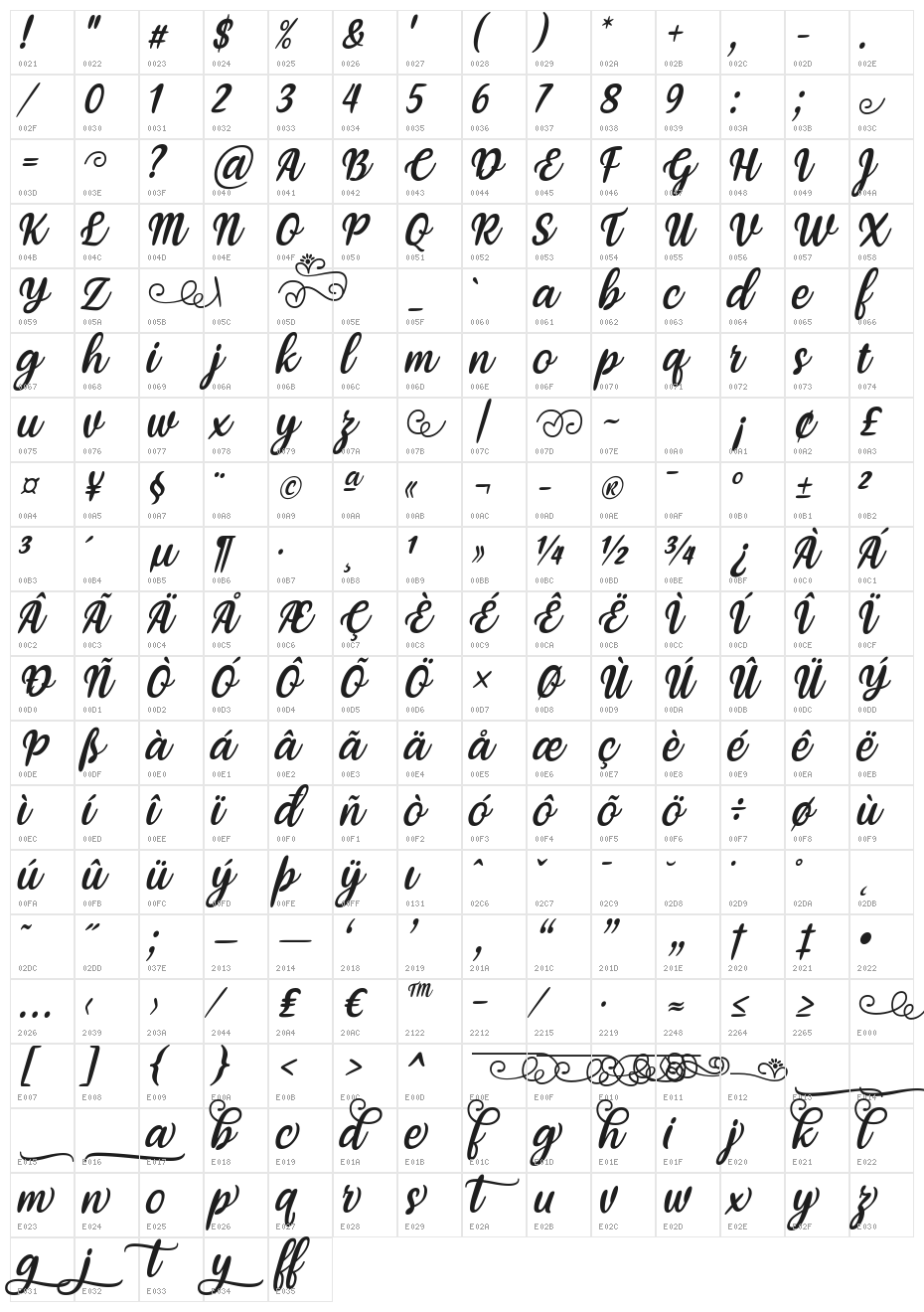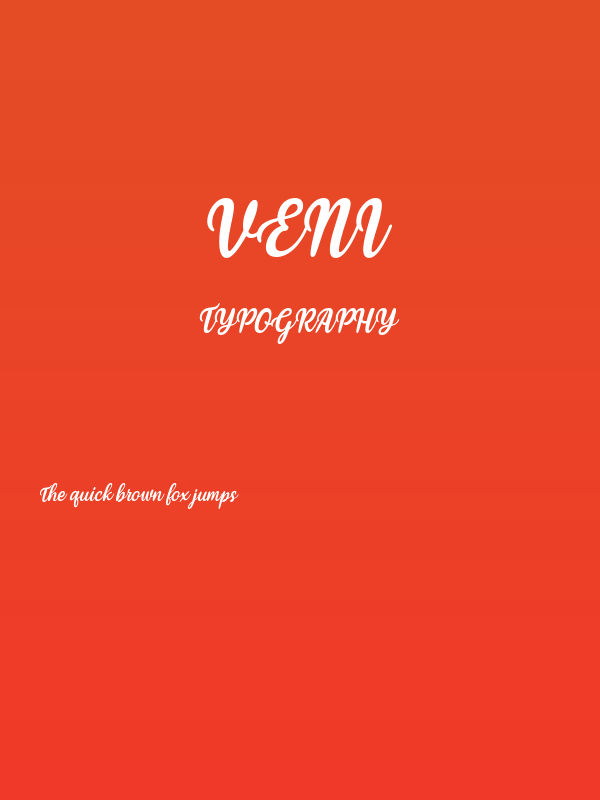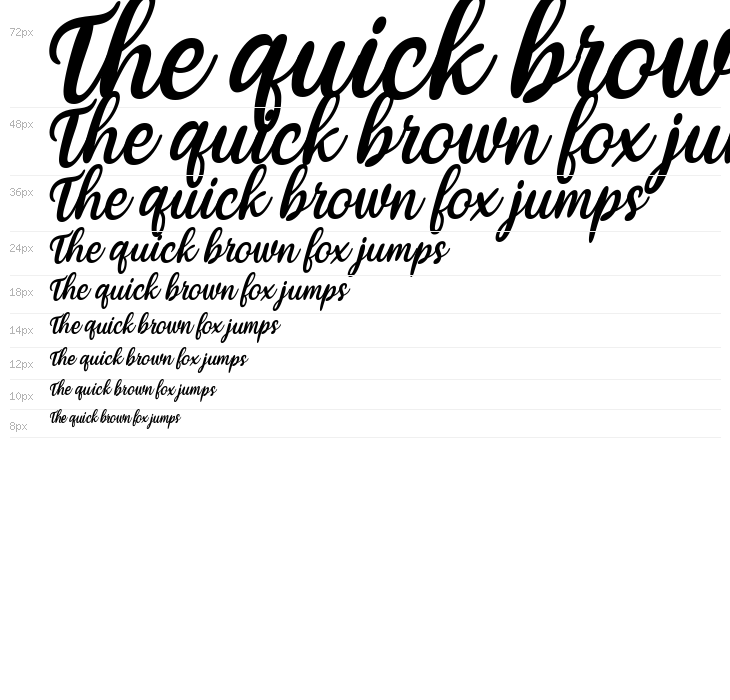
Veni Font
Veni Description
This font features a bold and flowing script style, characterized by its elegant and smooth curves. The letters are connected, giving it a handwritten appearance that is both stylish and legible. The uppercase letters are slightly larger and more pronounced, while the lowercase letters maintain a consistent flow. The numerals are clear and easy to read, matching the overall script style. Special characters are included, maintaining the same fluidity and elegance. This font is perfect for adding a personal touch to any design, combining readability with a touch of sophistication.